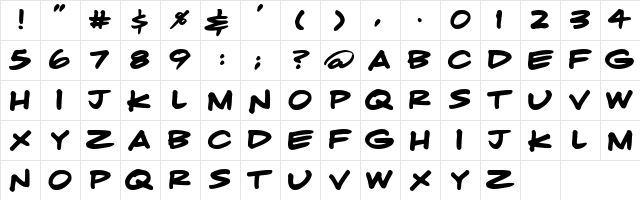
LHF Fast Caps Regular Free Font
LHF Fast Caps Regular
LHF Fast Caps Family
LHF Fast Caps Regular
Design Context for LHF Fast Caps
LHF Fast Caps is a composed and adaptable typeface that performs quietly and consistently across a wide range of design contexts.
Pro Tip: Use LHF Fast Caps in both headline and body roles to test its range before committing to a single application.